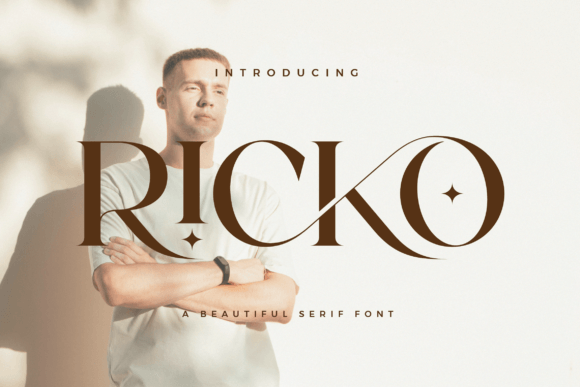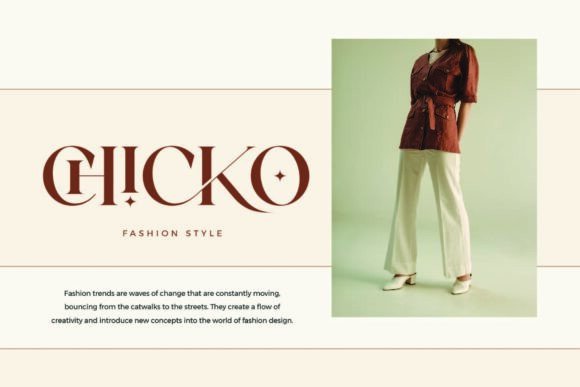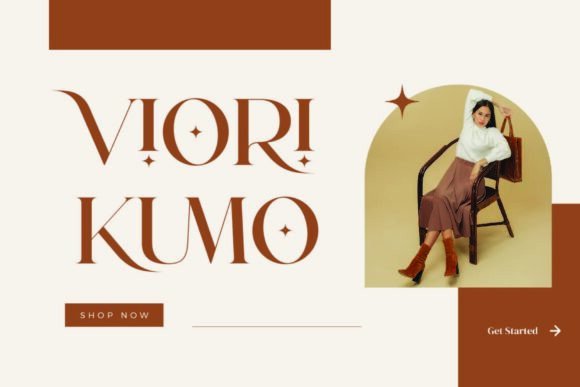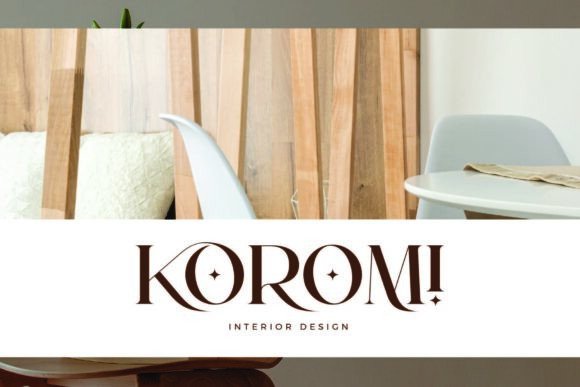
Ricko Font
About the Ricko Font
Get ready to be inspired by Ricko Font, a fresh and dynamic typeface for modern creators. Ricko Stylish Ligature Typeface, inspired by the famous minimalist logo perfect for the purposes of designing templates, brochures, videos, advertising branding, logos and more.
Ricko’s clean lines and ligatures make it ideal for headlines, short-form text in branding materials, and logos where impact is key. It excels in creating a sophisticated and modern feel for posters and advertising. However, its minimalist nature and relatively high x-height make it less suitable for body text or long paragraphs; readability suffers at smaller sizes.
The font’s personality is undeniably bold and sophisticated, lending itself well to brands projecting confidence and modernity. Think high-end fashion, minimalist architecture, or technology companies.
Pairing Ricko with a neutral sans-serif like Lato for body copy provides excellent contrast and readability. For a more playful feel, consider a rounded geometric sans-serif like Circular Std. A classic serif like Garamond could add a touch of traditional elegance to balance Ricko’s modern edge.
Ricko Font Usage Examples
Ricko Font Example